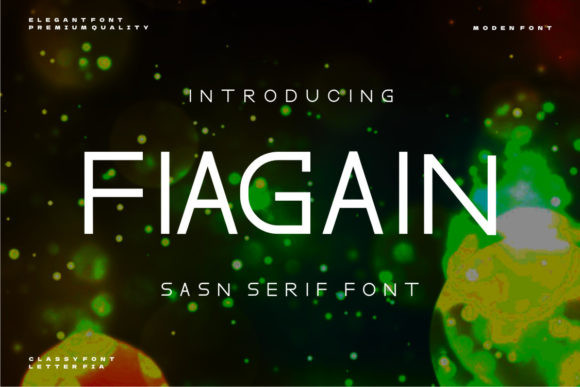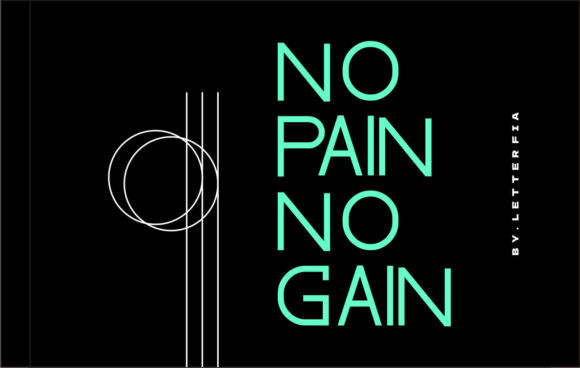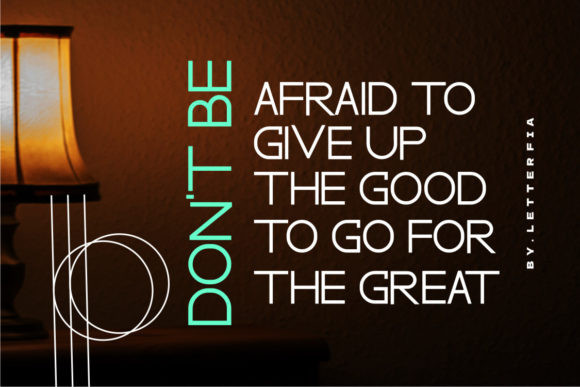
Fiagain Font
Fiagain is a tall and versatile sans serif font. It can easily be matched to an incredibly large set of projects, so add it to your creative ideas and notice how it makes them stand out!